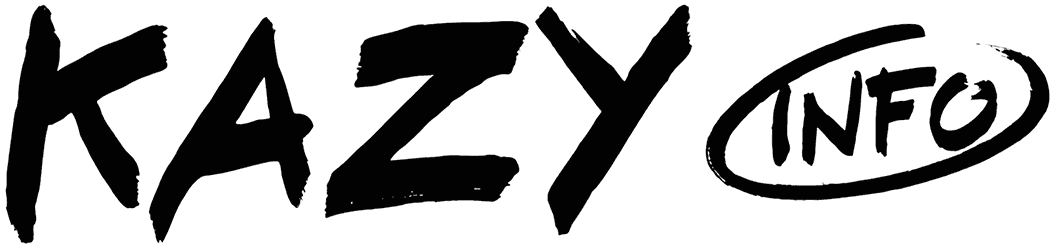
Kazyinfo Font
Make your project seem cool with an urban and hand-drawn art style of Kazyinfo. As a brush font, it has a daring and real face that allows you to better display your texts. No offer for lowercase, but you can use Kazyinfo with your creativity for your upcoming projects, such as flyers, backgrounds, apparel, and many more.
KAZYinfo est une police manuscrite avec accents réalisée au feutre marqueur pointe plate avec un léger effet brossé.
Cette police accompagnera parfaitement un large éventail de design en renforçant leur dynamisme. Vous pourrez également profiter de quelques symboles pour animer vos créations.Comme indiqué, KAZYinfo est une police gratuite uniquement dans le cadre d’un usage personnel. Pour ce type d’utilisation, vos dons sont vraiment appréciés.
KAZYinfo is a handwritten font with accents made with a flat point marker pen with a slight brushed effect.
This font will go perfectly with a wide range of designs by reinforcing their dynamism. You can also take advantage of some symbols to animate your creations.As noted, KAZYinfo is a free font for personal use only. For this type of use, your donations are really appreciated.